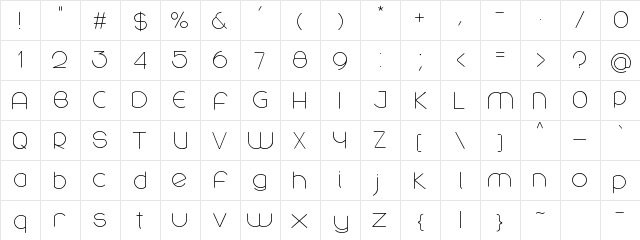
Rounded, two. Regular
Design Context for Rounded, two. Typeface
Rounded, two. uses gentle rounded endings to create a warm, inviting typographic personality — less corporate than geometric sans, more refined than playful display fonts.
Well-suited to UI design, mobile interfaces, and any brand that wants approachability without sacrificing clarity.
Font Pairing: Pairs well with a rounded or humanist sans for body copy, maintaining the friendly tone without relying on Rounded, two. to carry extended reading.
Pro Tip: Use Rounded, two. for UI elements, app interfaces, and anywhere a friendly, approachable tone needs to be maintained without sacrificing clarity.